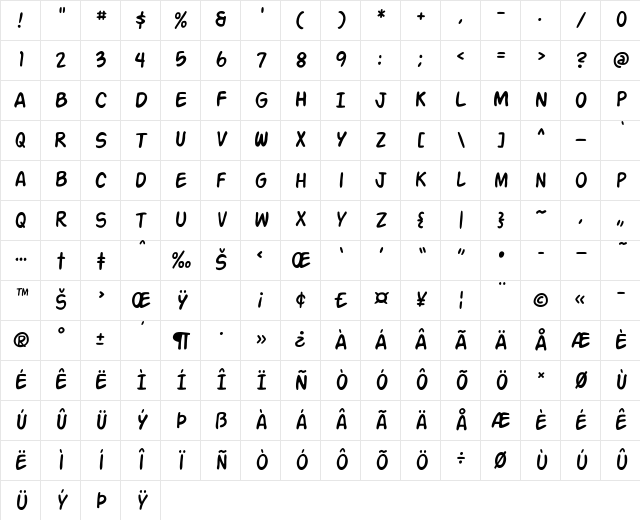
Action Man Regular Free Font
Action Man Regular
Action Man Family
Design Context for Action Man
Action Man is a composed and adaptable typeface that performs quietly and consistently across a wide range of design contexts.